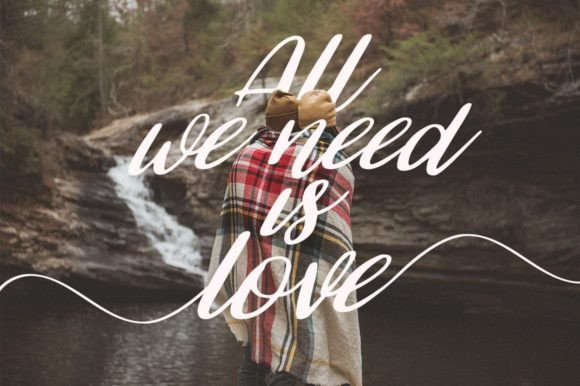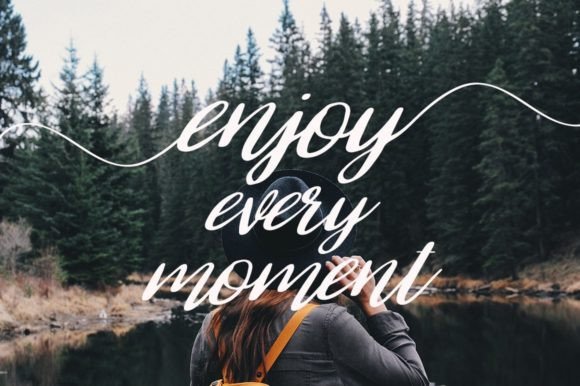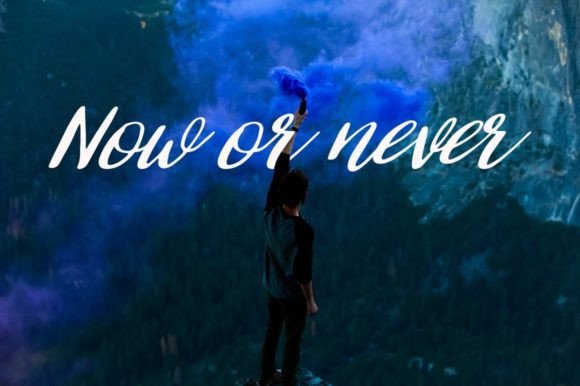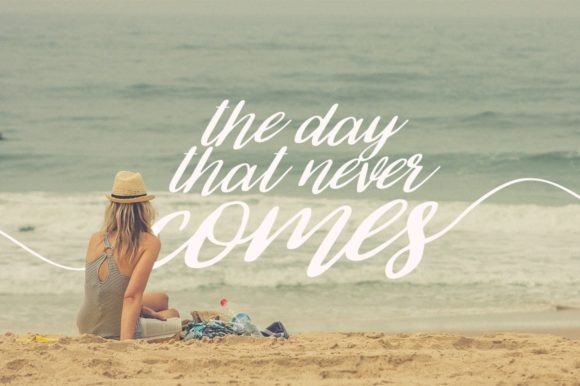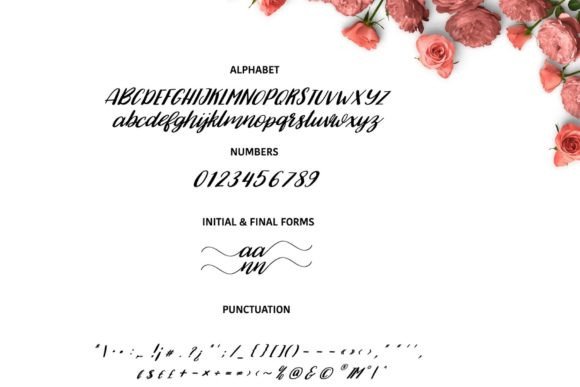
Selena Font
About Selena Font
Selena is a fresh and captivating handmade calligraphy font, designed to bring a unique touch to various design projects. Its versatility makes it an excellent choice for a range of applications, including greeting cards, branding materials, business cards, quotes, posters, and more. One of its notable features is that it is coded with PUA Unicode, providing easy access to a plethora of extra characters without requiring special designing software.
The handmade calligraphy style of Selena adds a personal and artistic flair to design projects. The natural strokes and elegant curves create a sense of authenticity, making it well-suited for conveying sentiments in greeting cards and adding a touch of charm to various materials.
In branding materials and business cards, Selena brings a distinctive and sophisticated look. The calligraphic elements contribute to a sense of elegance, making it an ideal choice for businesses or individuals looking to create a memorable and visually appealing brand identity.
Quotes and posters benefit from the artistic charm of Selena. The font’s calligraphic nature enhances the visual impact of motivational quotes, inspirational messages, or promotional posters, making them stand out and capture attention.
The inclusion of PUA Unicode in Selena ensures that users have full access to additional characters without any software limitations. This feature enhances the font’s versatility, allowing designers to explore various stylistic options and customize their projects with ease.
Whether you are working on digital or print materials, Selena’s calligraphy font offers a refreshing and stylish solution. Its ability to strike a balance between elegance and a handmade aesthetic makes it a valuable asset for designers seeking a font that can add character and sophistication to a wide range of creative endeavors.